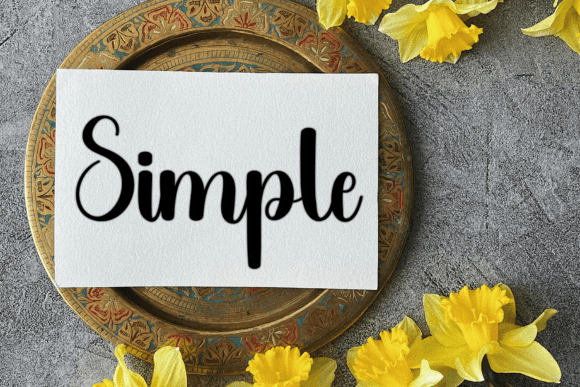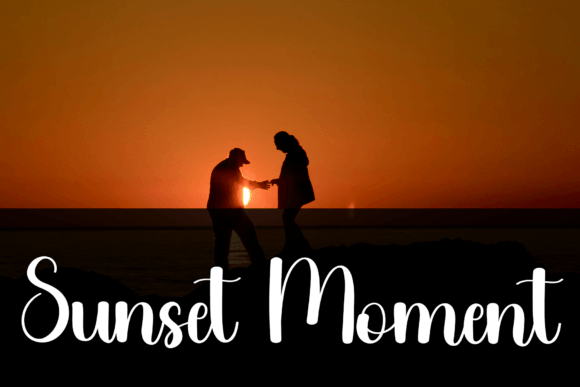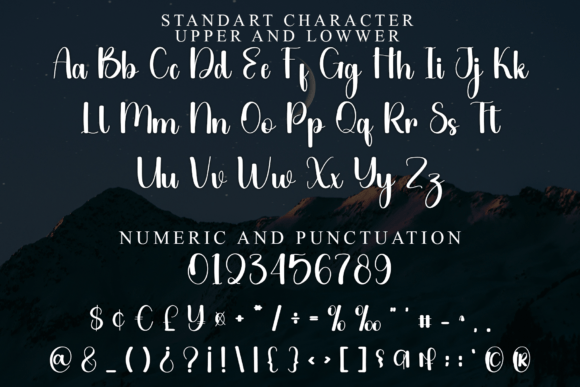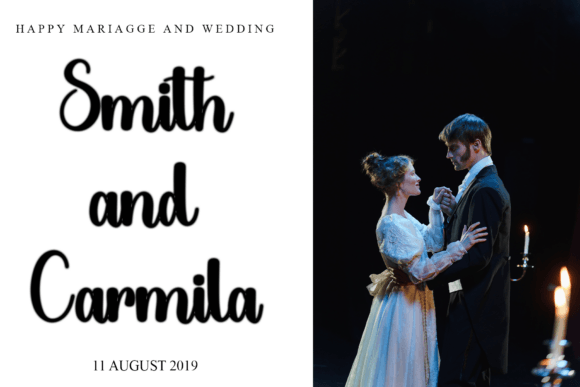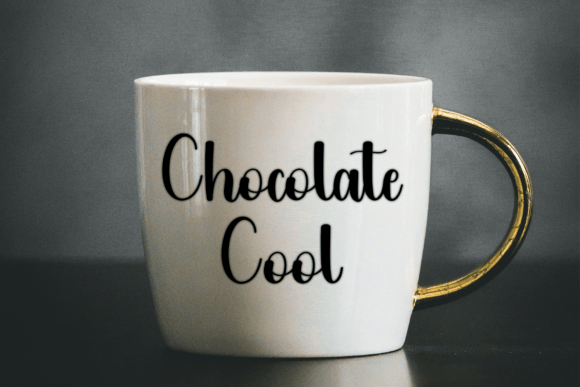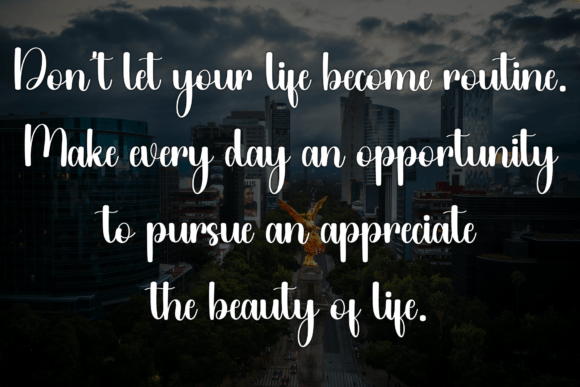
Introduction to Ability Font
Ability is a bold, handwritten font with a natural, energetic feel.
It has thick, smooth letters, perfect for adding a personal, creative touch to designs Great for posters, logos, and social media graphics.
Key Features of Ability Font
Why Choose Ability Font?